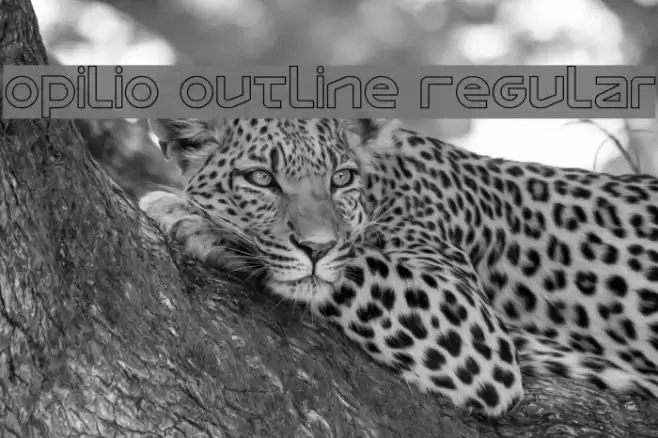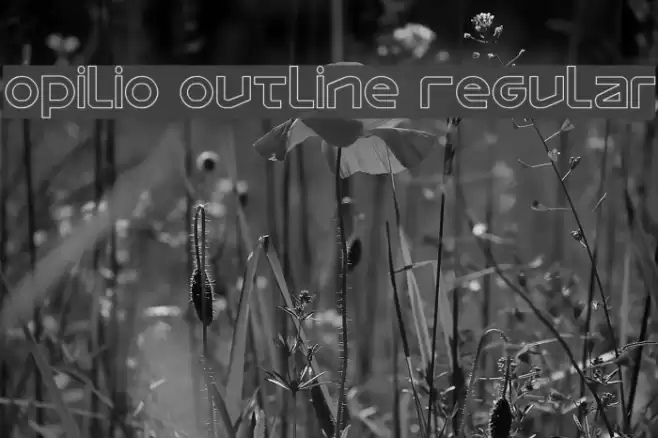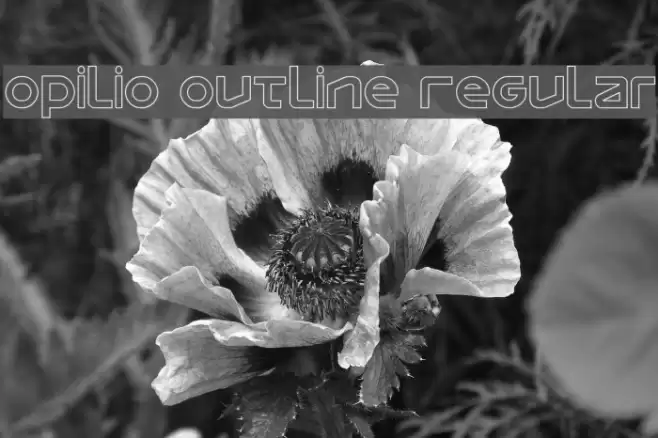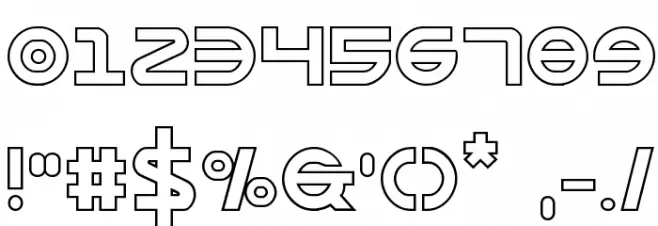
Opilio Outline Regular Font
Opilio Outline Regular Description
This font features a unique outline style with geometric and angular shapes, giving it a modern and futuristic appearance. The characters are constructed with clean lines and sharp edges, creating a distinct and bold look. The uppercase and lowercase letters maintain a consistent design, with a uniform stroke width that enhances readability. The numerals and special characters follow the same design principles, ensuring a cohesive appearance across all glyphs. This font's outline nature makes it stand out, ideal for projects that require a striking visual impact.
A modern, geometric outline font with sharp, angular shapes from Uncategorized fonts.
- Proposed Projects: Ideal for futuristic designs, tech branding, posters, and digital artwork.